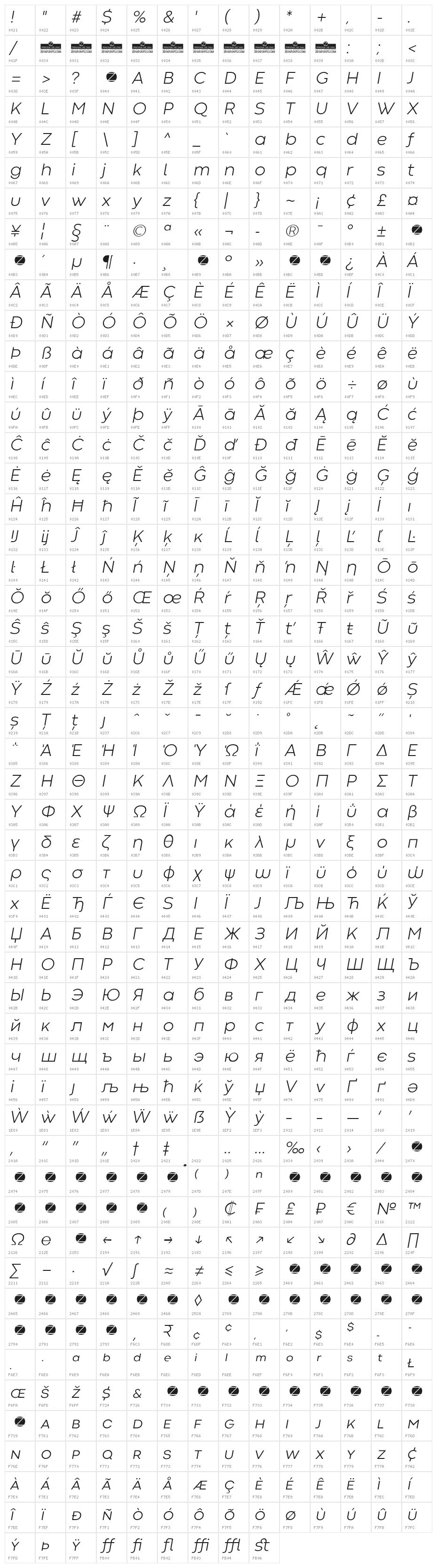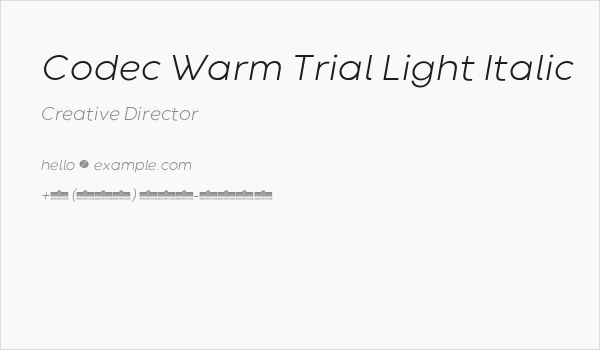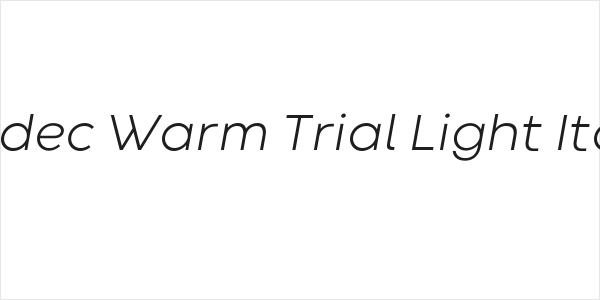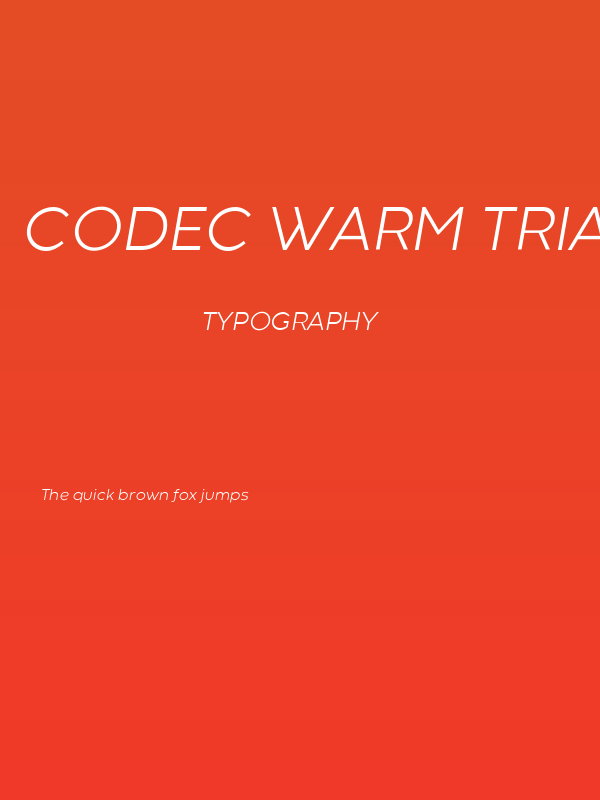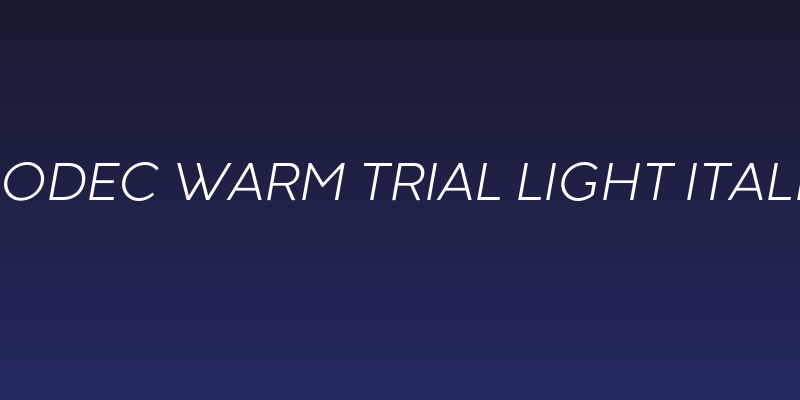
Codec Warm Trial Light Italic Font
Codec Warm Trial Light Italic Description
This font features a sleek and modern design with a light weight and italic style. The characters are elegantly slanted, giving a sense of motion and fluidity. The sans-serif design is clean and minimalistic, making it suitable for contemporary applications. The uppercase and lowercase letters maintain a consistent style, with smooth curves and sharp edges. The numerals and special characters are well-integrated, ensuring readability and aesthetic appeal across various uses.
Proposed ProjectsIdeal for modern branding, editorial design, digital interfaces, and stylish advertising campaigns.